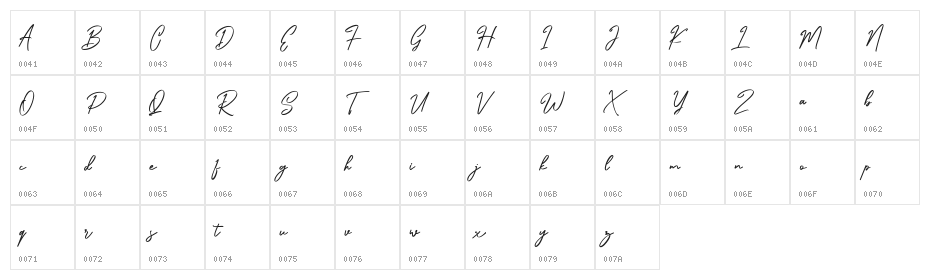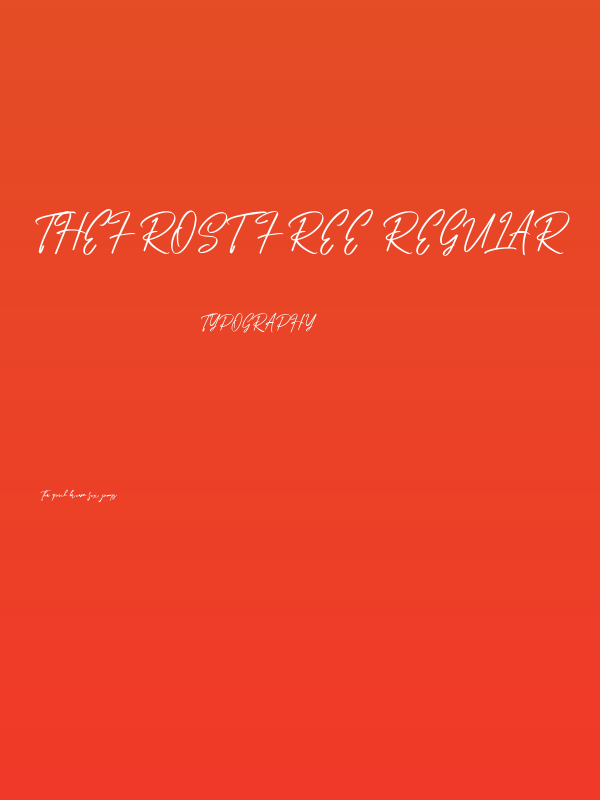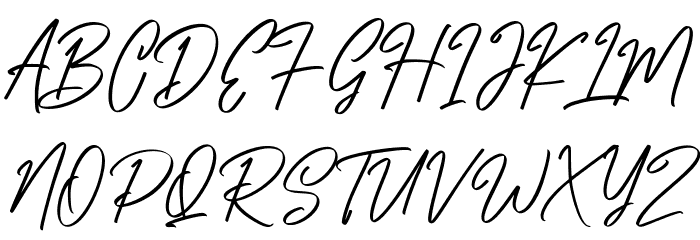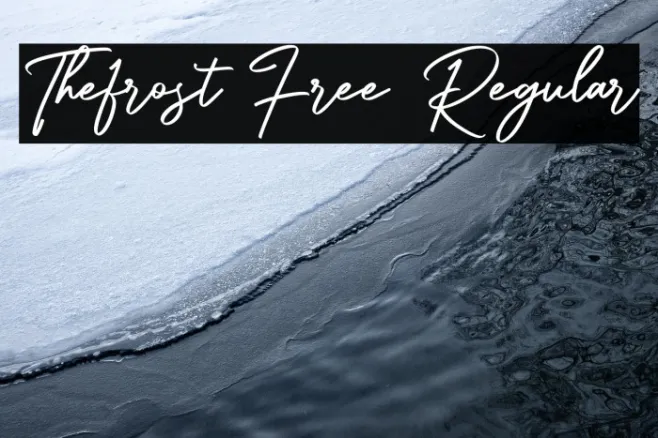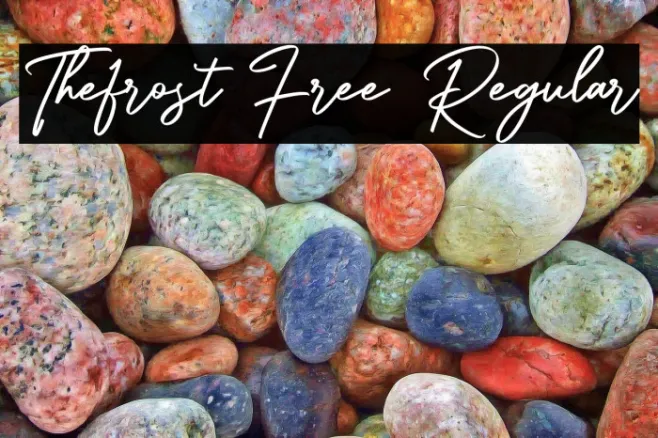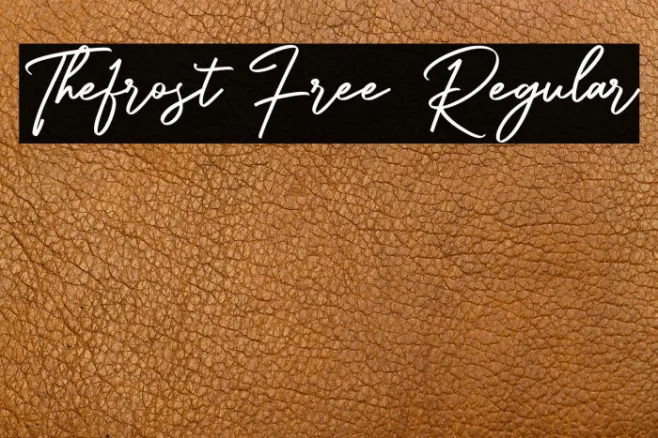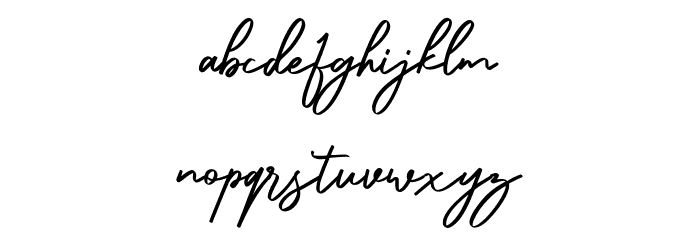
Thefrost Free Regular Font
Thefrost Free Regular Description
This elegant script font features a fluid and graceful design, characterized by its smooth, flowing lines and cursive style. The uppercase letters are slightly larger and more elaborate, with sweeping curves and loops that add a touch of sophistication. The lowercase letters maintain a consistent flow, connecting seamlessly to create a harmonious appearance. The font's thin strokes and delicate curves give it a refined and stylish look, making it ideal for projects that require a touch of elegance and class. The characters are well-spaced, ensuring readability while maintaining the font's decorative appeal.
| Use Case | Headlines, Invitations, Branding |
| Proposed Projects | Ideal for wedding invitations, elegant branding, personal stationery, and decorative headlines. |